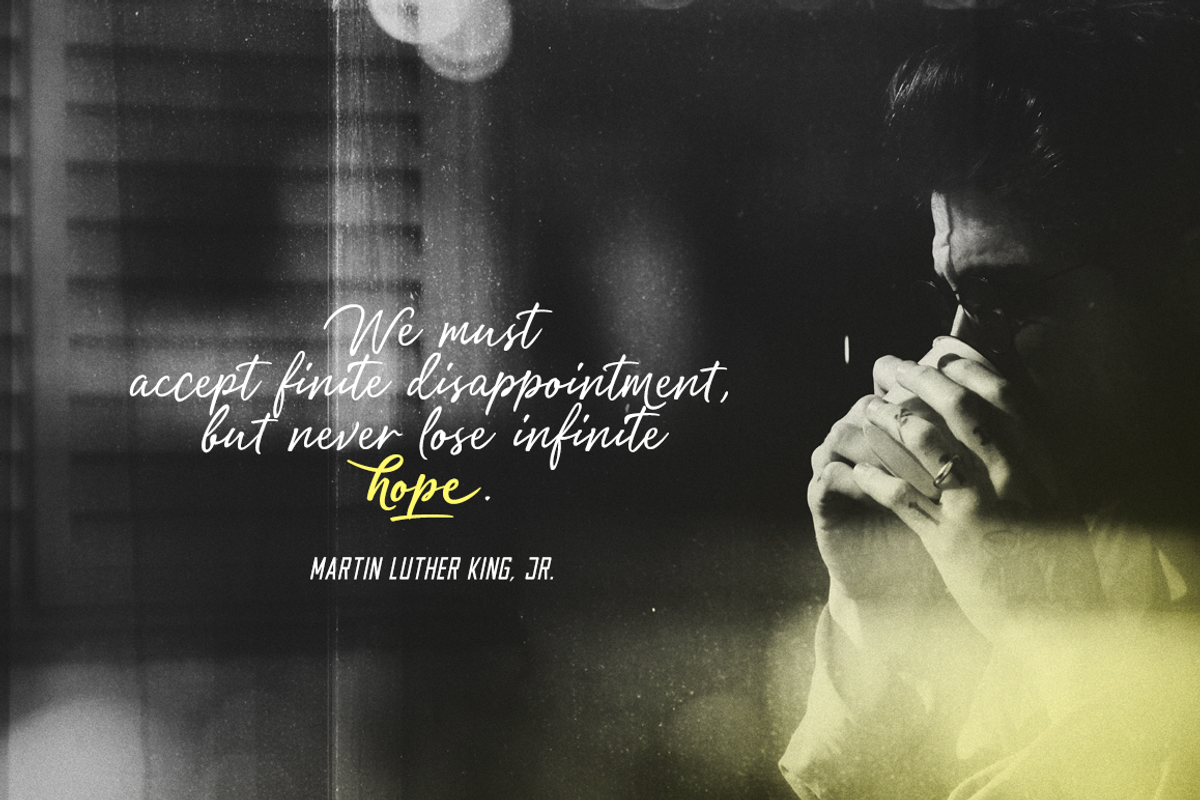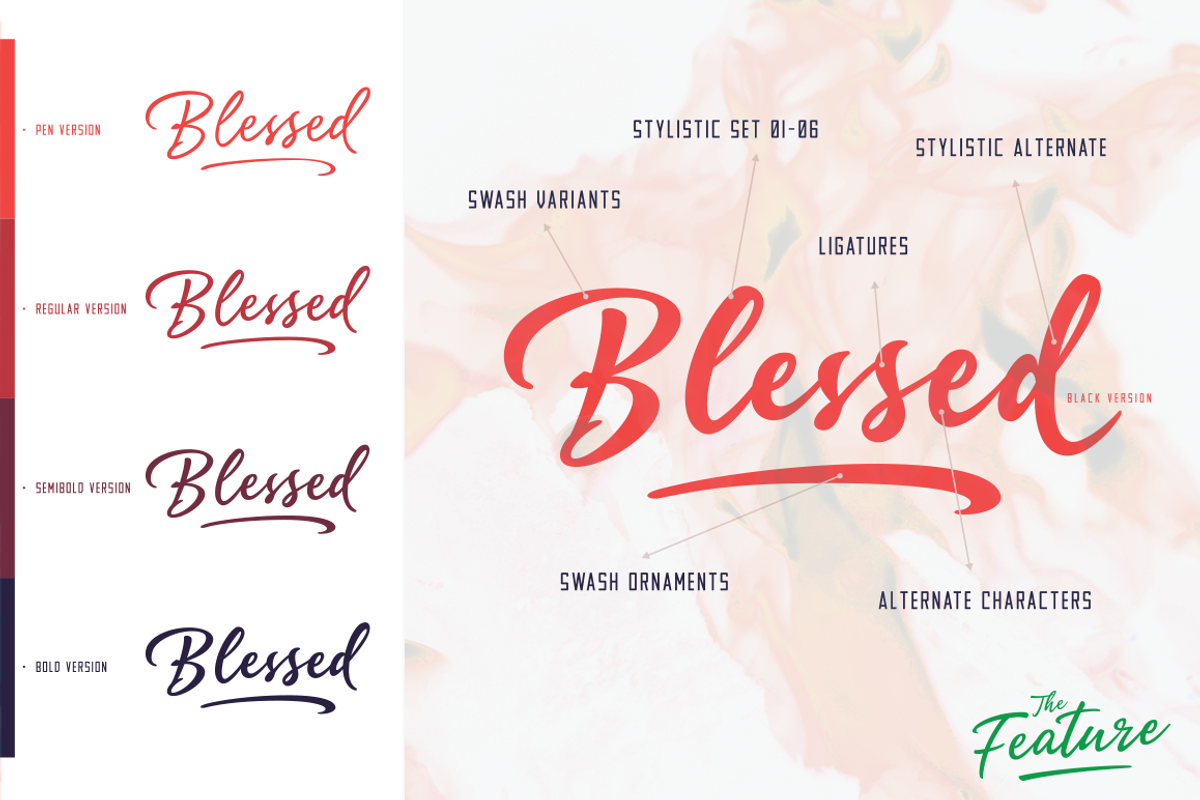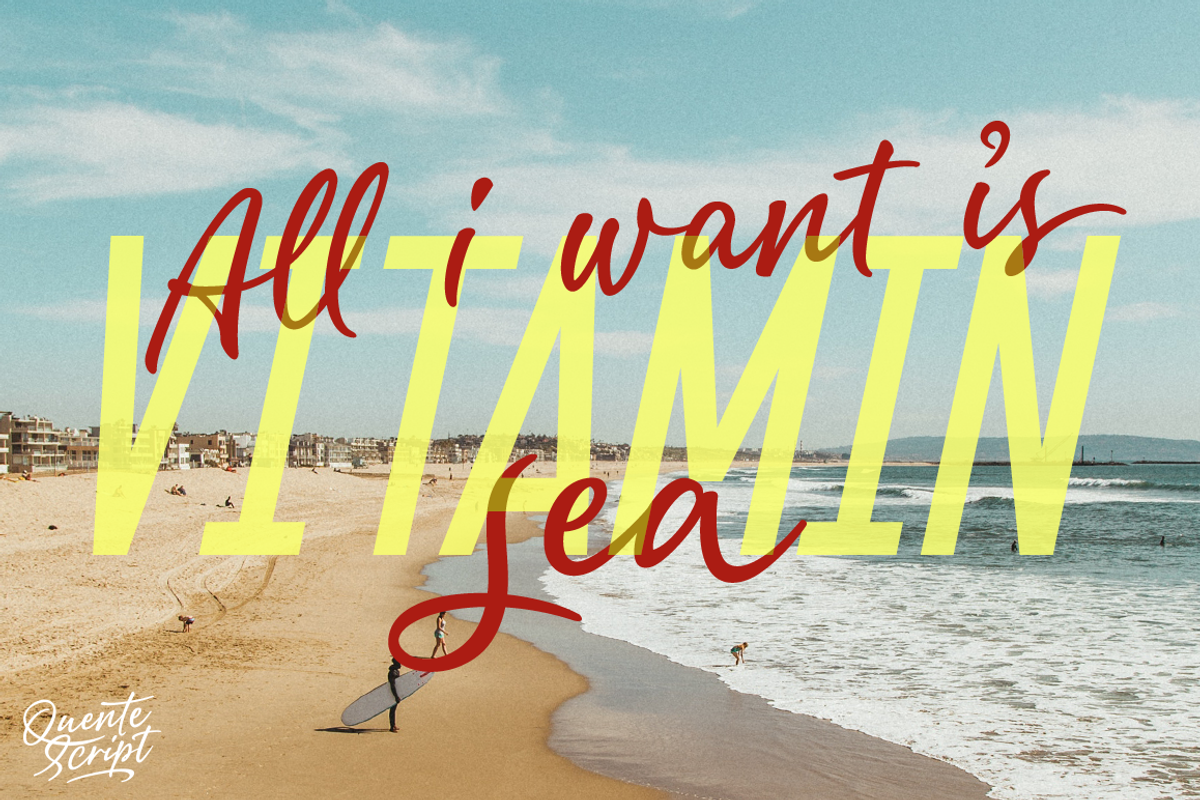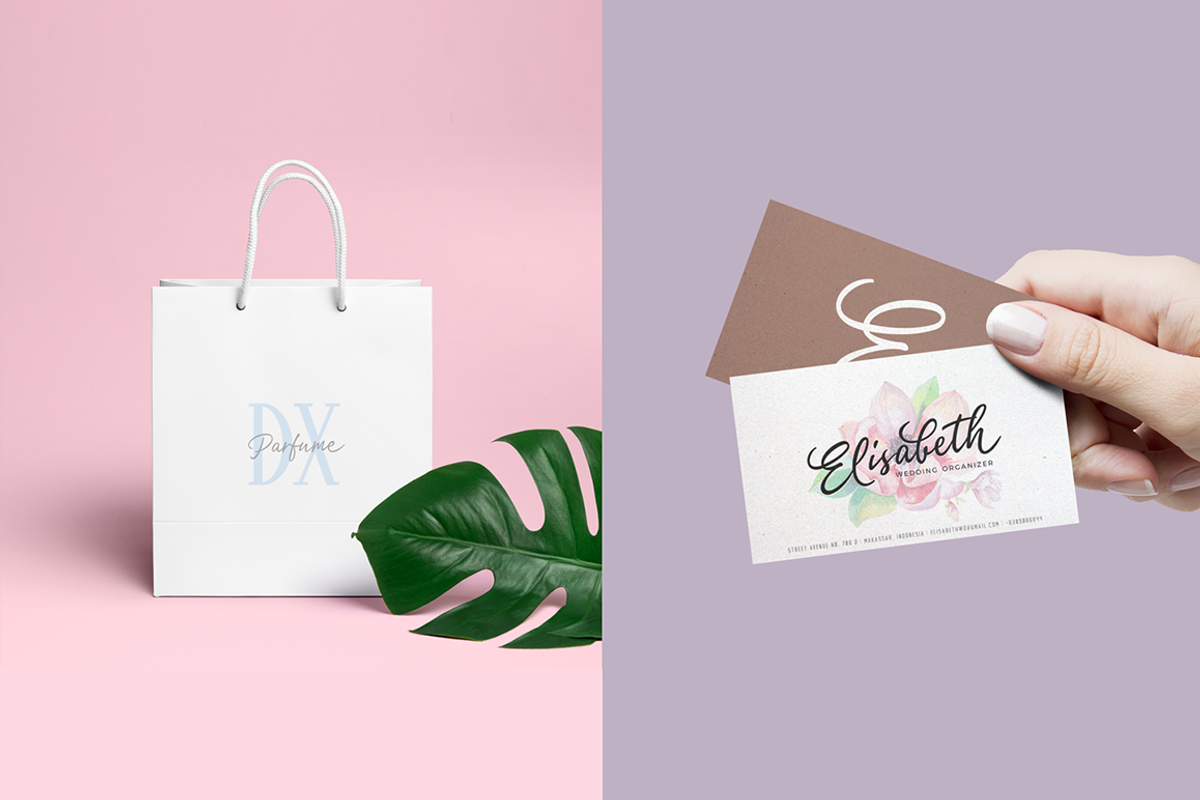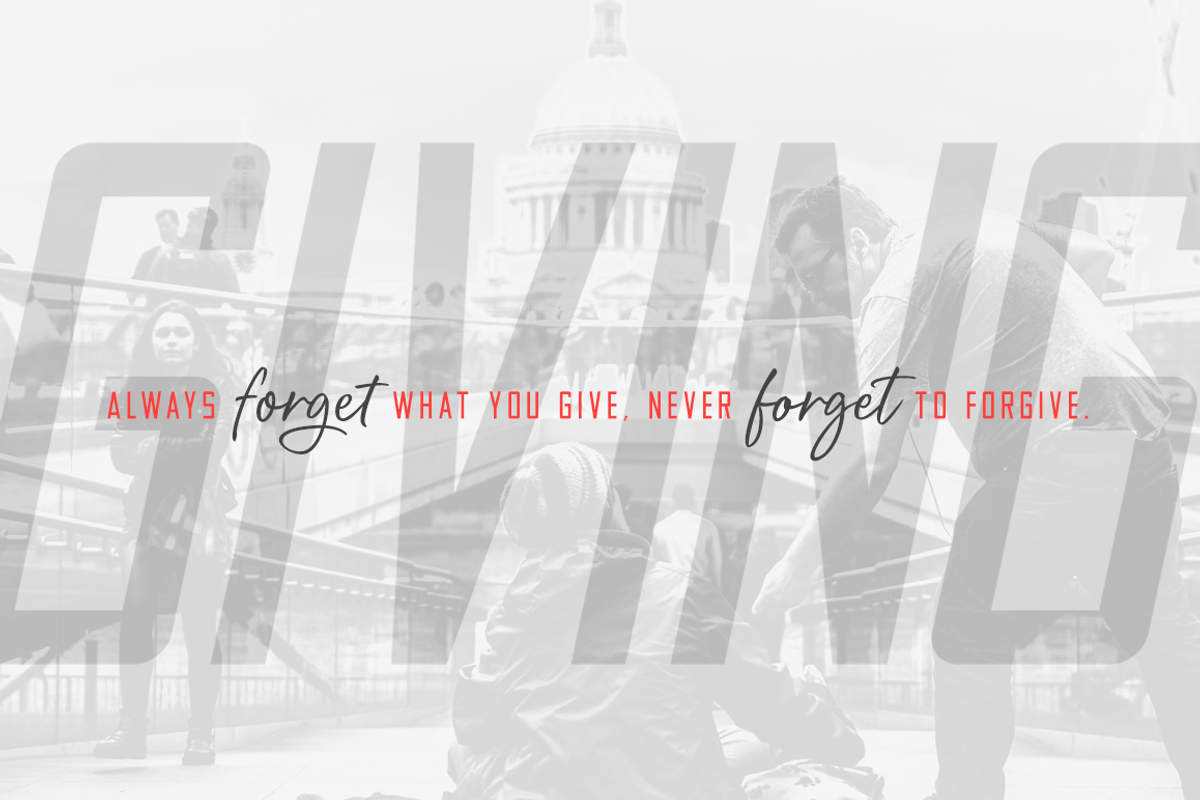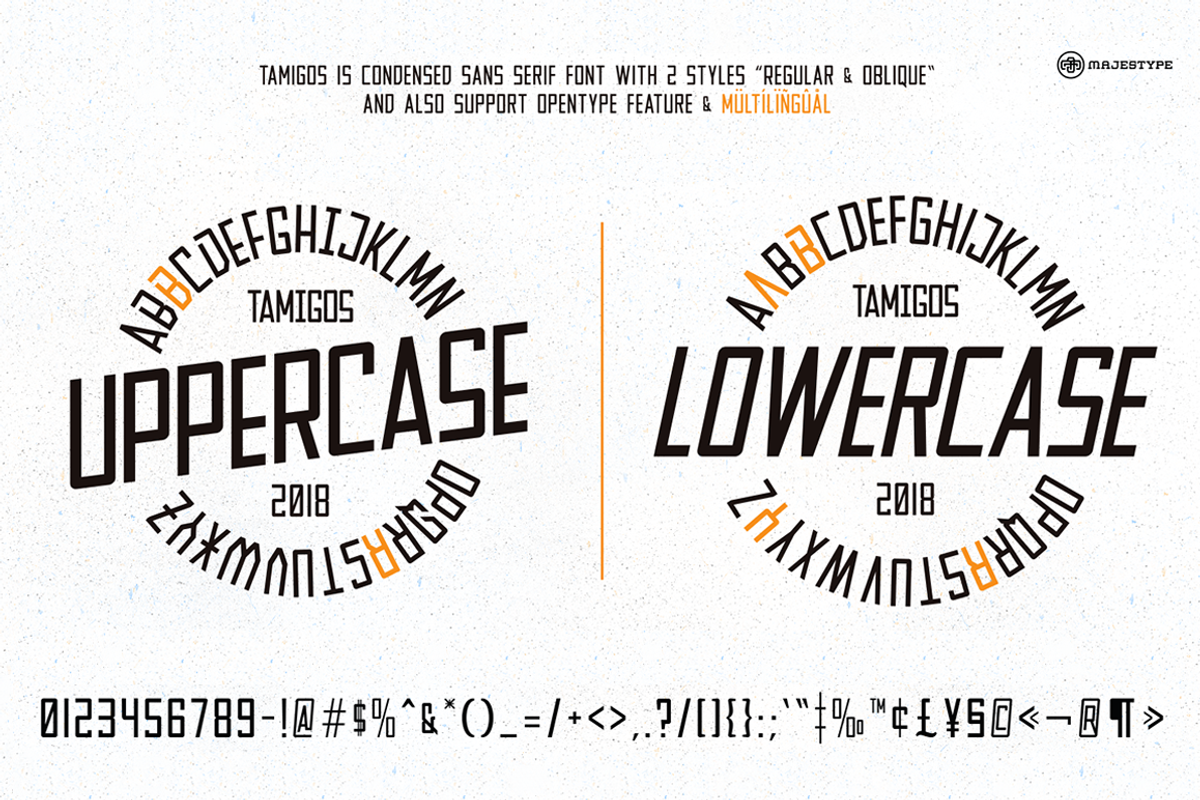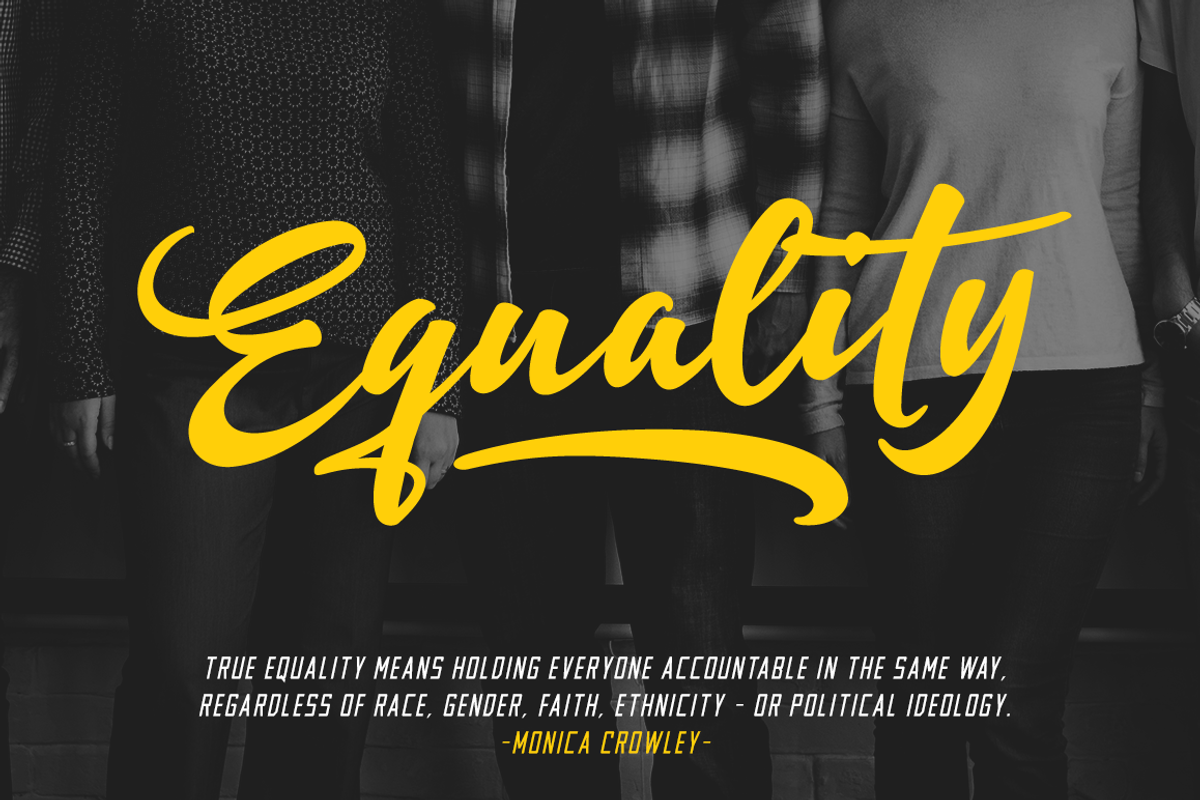
Quente & Tamigos - Script Sans Font
Quente Script is a blend of handwritten styles that merge into a font. When you look at this font you will feel a very strong mix of interaction between classic style, handwriting, signature and brush pen. Quente Script comes with 5 variations: Pen, Regular, SemiBold, Bold dan Black which is aims to provide more experience to anyone who uses this font.
Tamigos is almost identical to Quente Script. It is a condensed sans serif combined with classic and modern style.
Quente Script + Tamigos support multilingual & OpenType features, that can allow you to choose a character that you like and suitable for the project you're working on such as like tshirt design, photography, invitation, ID card, poster, logo, title, branding and etc.